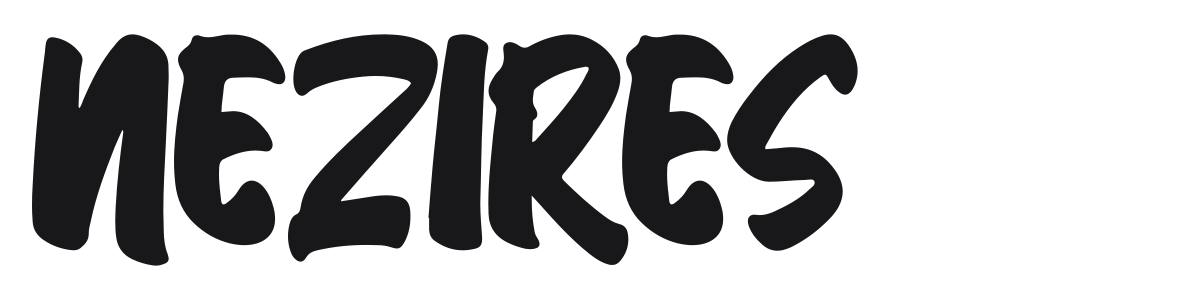
Nezires
Nezires is a bold brush script with chunky, hand-painted strokes and a raw, energetic feel. The characters carry natural irregularities and lively baseline rhythm typical of marker or broad-brush lettering. It brings immediate visual impact to posters, packaging, and branding that wants an informal, human touch.